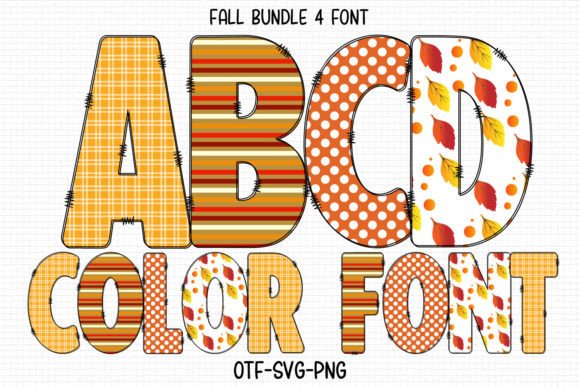
Introducing Fall Alphabet Font, the most vibrant and captivating font collection, meticulously crafted by the visionary minds at Color Studio. Immerse yourself in a world of autumnal charm and creativity, where every letter bursts with the brilliance of the changing seasons.
Fall Alphabet Font is not just a collection of fonts; it's an invitation to embark on a creative journey, where your imagination takes center stage. Picture yourself designing stunning invitations that come alive with the warmth of fall foliage, or creating social media posts that radiate the cozy ambiance of a crisp autumn evening.
With Fall Alphabet Font, your designs will be infused with an enchanting, eye-catching charm that will leave a lasting impression on your audience. Whether you're a seasoned designer or just starting, this font collection will elevate your projects to new heights, making every creation a masterpiece.
Imagine transforming your designs into captivating TV commercials that dance with vibrant hues and leave viewers spellbound. Fall Alphabet Font will help you craft visuals that captivate audiences, leaving them yearning for more.
This font family is a true chameleon, effortlessly adapting to a myriad of creative endeavors. Whether you're designing logos that exude sophistication, brochures that inform and delight, or T-shirts that spark conversations, Fall Alphabet Font will rise to the occasion, adding a touch of magic to every project.